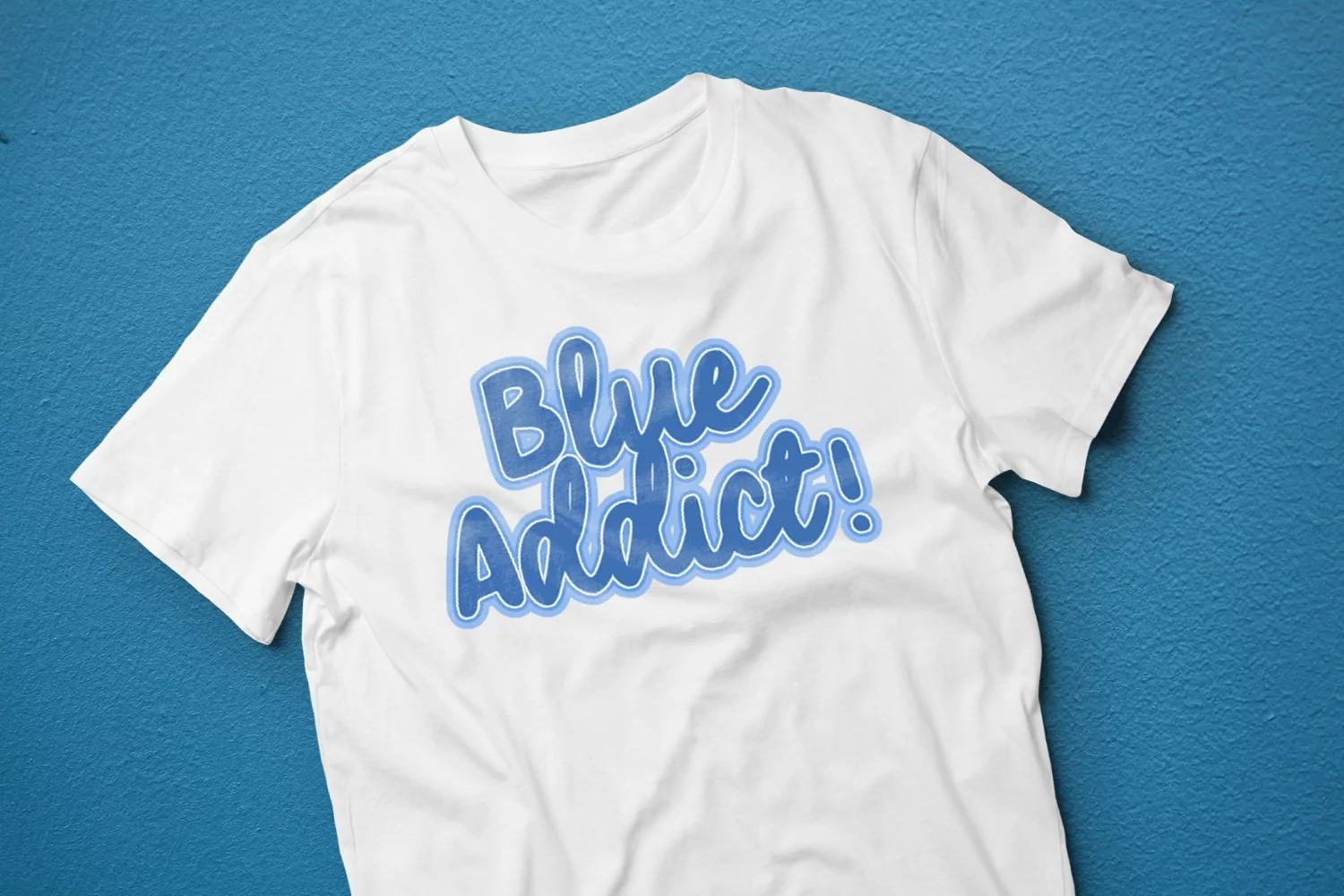
Nowah is hand-made typeface crafted with pen that make this font perfect for delivering an extremely natural and organic message in your design. It is very suitable for various types of design needs such as branding materials, t-shirt, food packaging, business cards, logos, posters, and more.